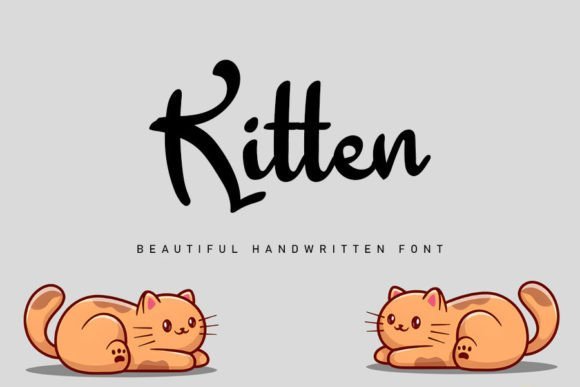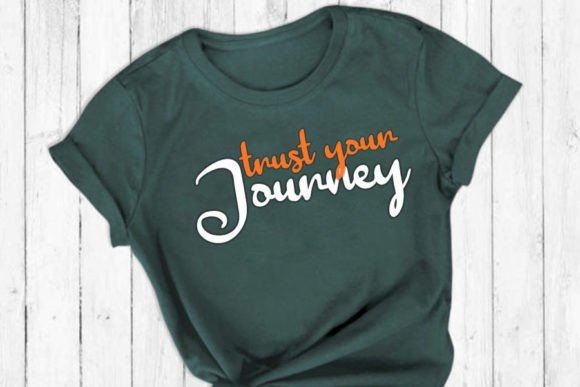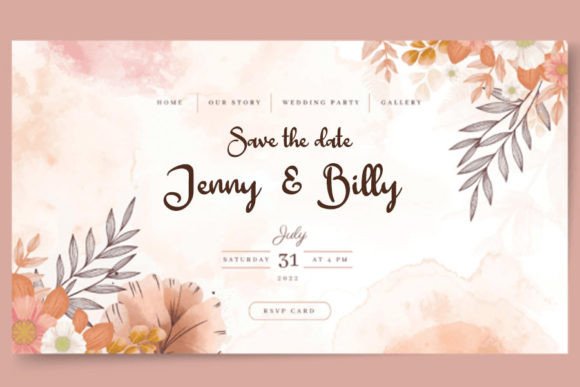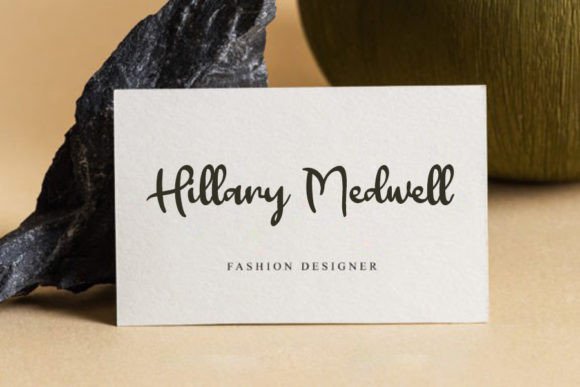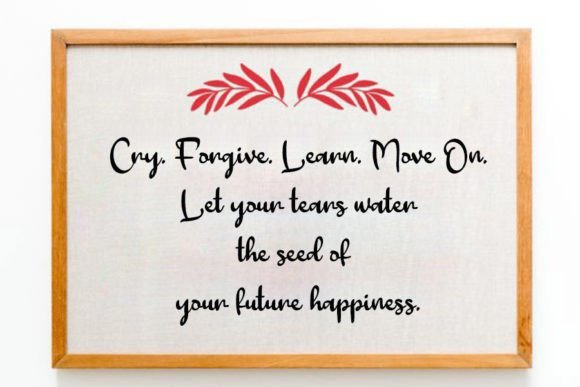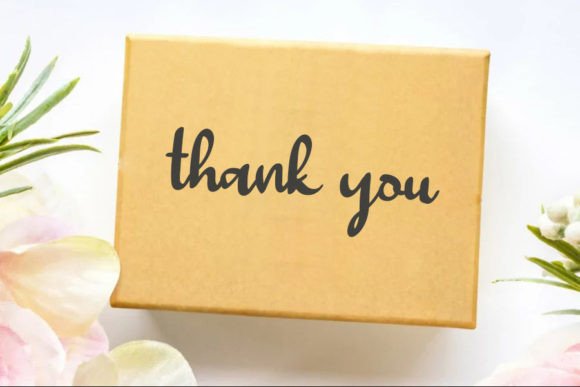
The Purr-fect Addition to Your Design
As a designer, have you ever been stuck on a project, searching for the perfect font to convey a sense of elegance and whimsy? I know I have. One day, while brainstorming ideas for a wedding invitation, I stumbled upon a font that made my heart skip a beat – the Kitten Font. Its charming and delicate features seemed to capture the essence of a kitten’s playful yet endearing personality.
The Kitten Font is a beautiful, handwritten font that adds a touch of sophistication to any design. Whether it’s a wedding invitation, a thank you card, or a logo, this font is sure to leave a lasting impression. Its versatility and charm make it a valuable addition to any designer’s toolkit, and its ease of use makes it accessible to designers of all skill levels.
Kitten Font Key Features
- Unique Characteristics: Kitten Font features a playful, cursive design with a mix of rounded and pointed letters, giving it a distinctive and endearing look.
- Script and Stylistic Sets: Kitten Font includes multiple script and stylistic sets, allowing users to customize the font to suit different styles and moods.
Kitten Font Review
As a designer, I was excited to dive into the Kitten Font and see what it has to offer. Overall, I’d say it’s a cute and playful font that could be perfect for certain projects. ✨ The rounded edges and soft lines give it a whimsical feel that’s hard to resist. I can see it being used for children’s books, nursery decor, or even a fun logo for a pet-related business.
- ✨ The font is highly legible, even at smaller sizes.
- ✨ It’s available in a range of weights and styles, making it versatile for different design applications.
- ✨ The font is well-behaved in terms of spacing and kerning, making it easy to work with.
However, I do have some reservations:
- ⚠️ The font may be too playful or childish for some projects, which could limit its use.
- ⚠️ Some users may find the font too sweet or cliche, which could detract from its overall appeal.
Overall, I’d say the Kitten Font is a fun and charming addition to any designer’s toolkit. While it may not be suitable for every project, it’s certainly worth considering for those that need a playful touch.
Tips for Getting the Most Out of Kitten Font
For the best results, use Kitten Font for titles and headings, as it’s designed to be attention-grabbing and playful.
Kitten Font is ideal for:
Children’s books and educational materials
Marketing and advertising campaigns
Web design and social media graphics
Alternatives to Kitten Font for Designers
Pacifico is a beautiful, elegant script font that is perfect for adding a touch of sophistication to your designs. It’s ideal for use in branding, advertising, and editorial content where a high-end feel is desired.
Comparison to Kitten Font: Pacifico has a more refined and mature look compared to Kitten Font’s playful and childlike feel. While Kitten Font is great for casual, whimsical designs, Pacifico is better suited for more formal or luxurious projects.
Great Vibes is a modern, elegant script font that is perfect for adding a touch of sophistication and elegance to your designs. It’s ideal for use in branding, advertising, and editorial content where a high-end feel is desired.
Comparison to Kitten Font: Great Vibes has a more refined and polished look compared to Kitten Font’s playful and childlike feel. While Kitten Font is great for casual, whimsical designs, Great Vibes is better suited for more formal or high-end projects.